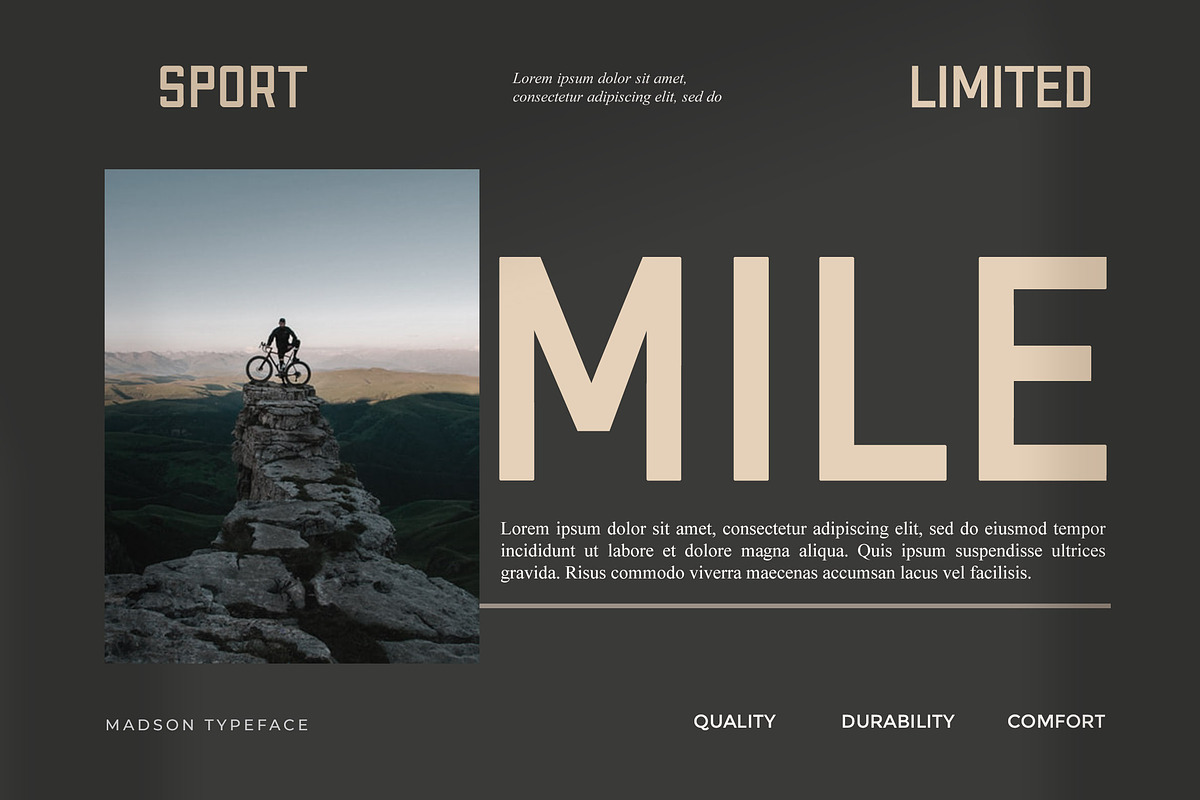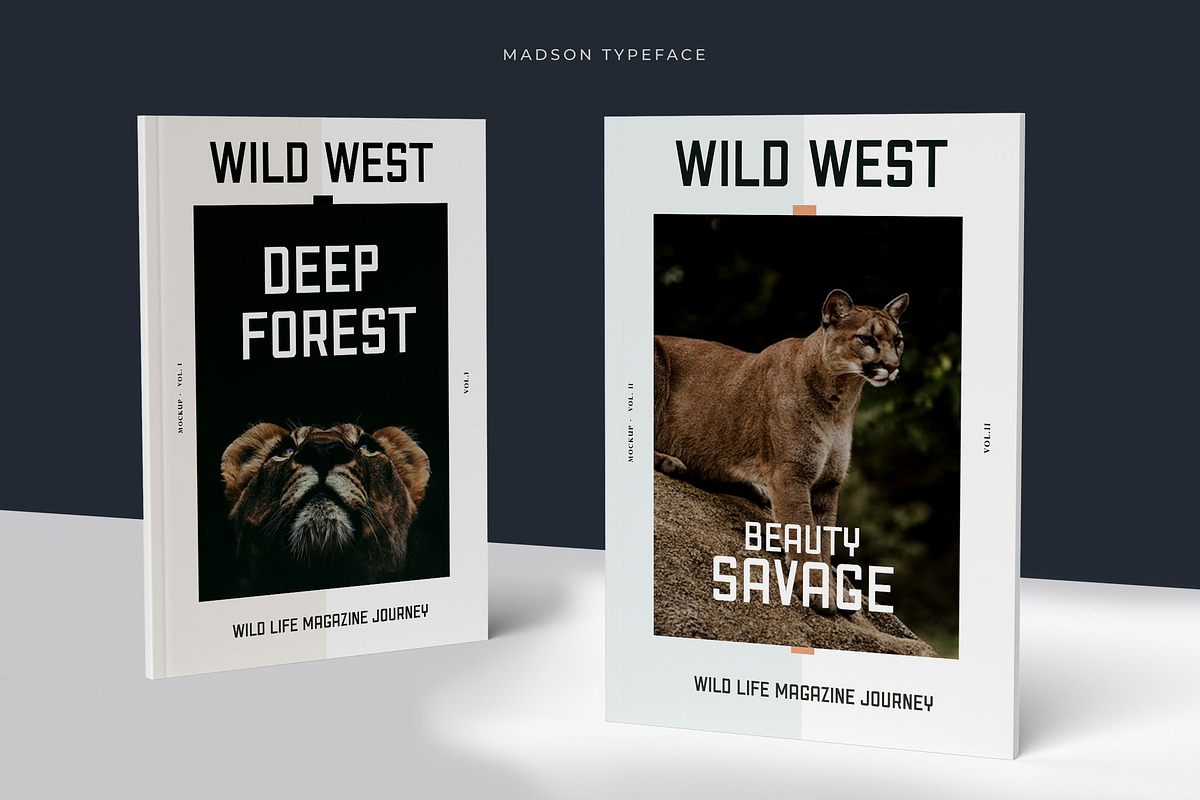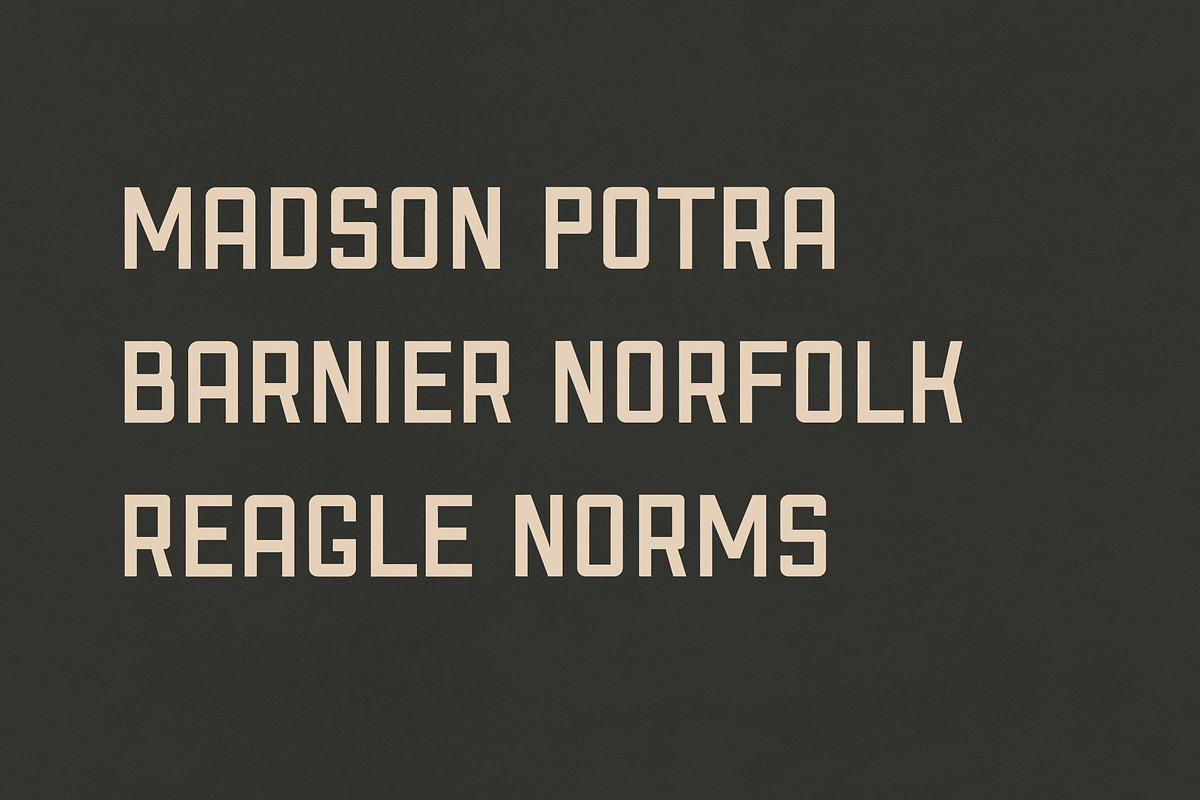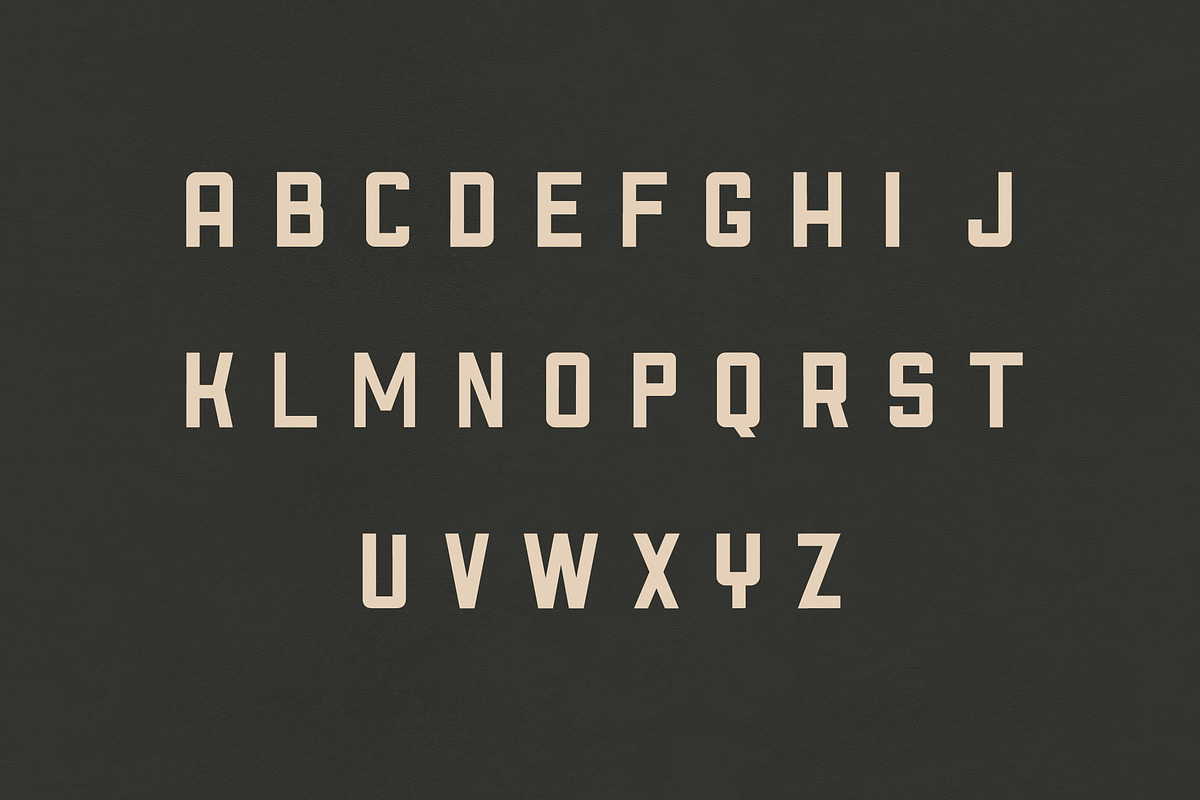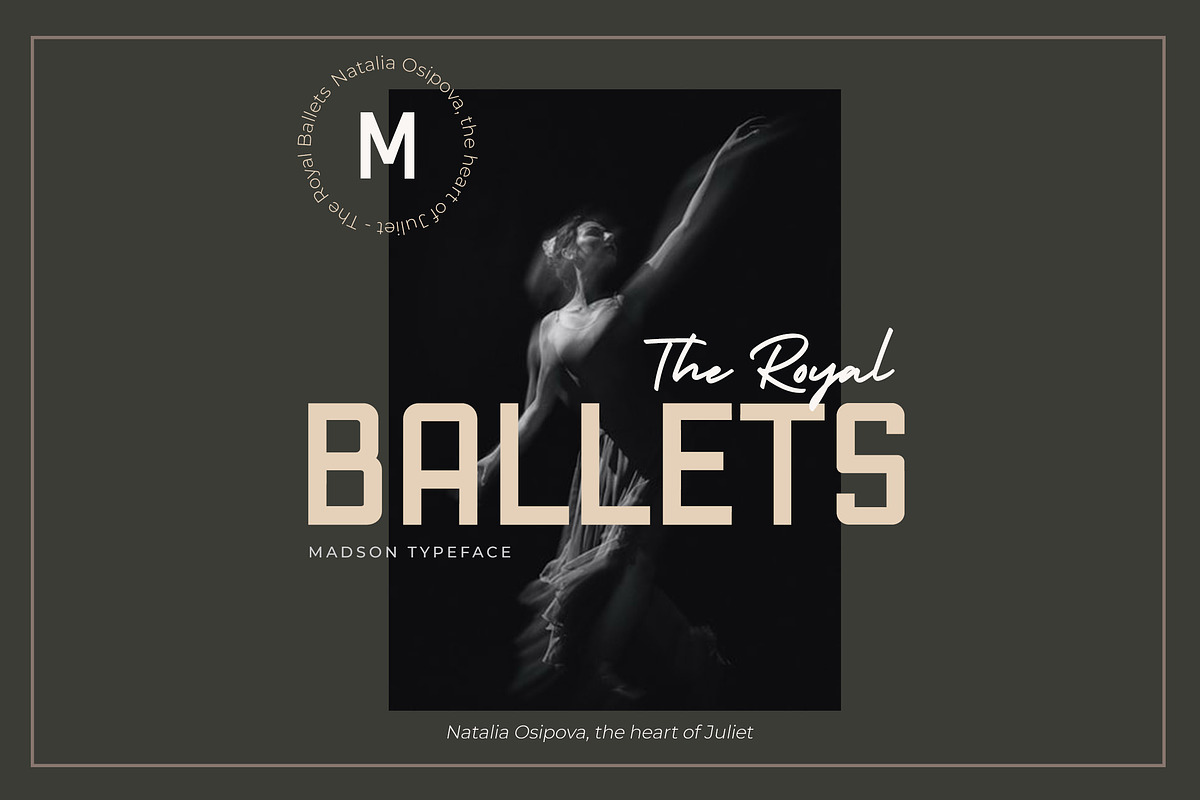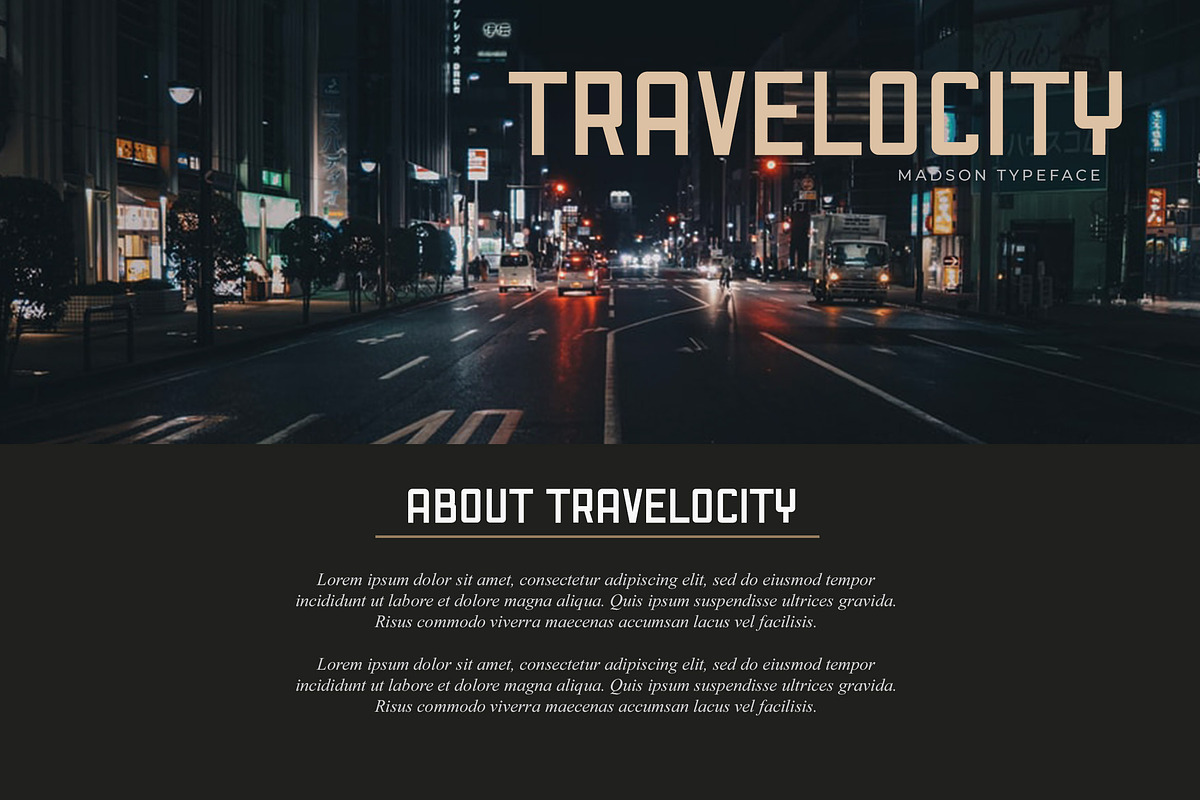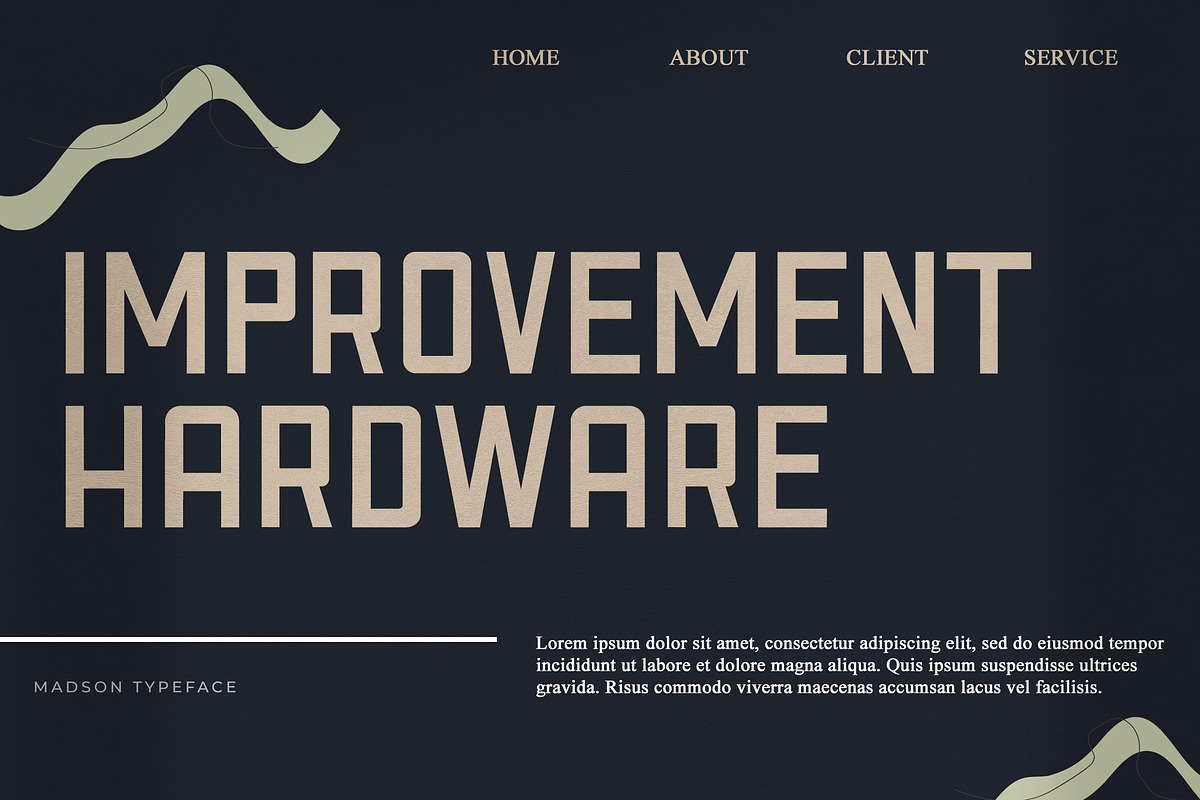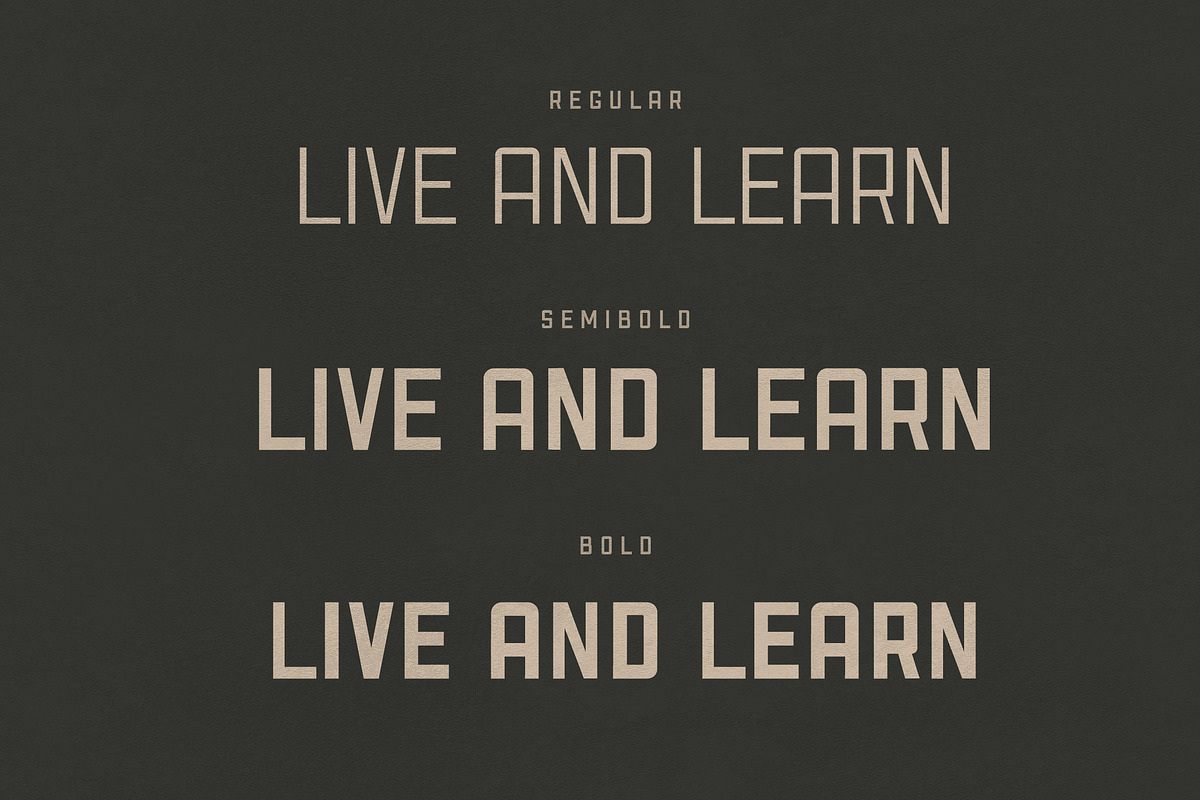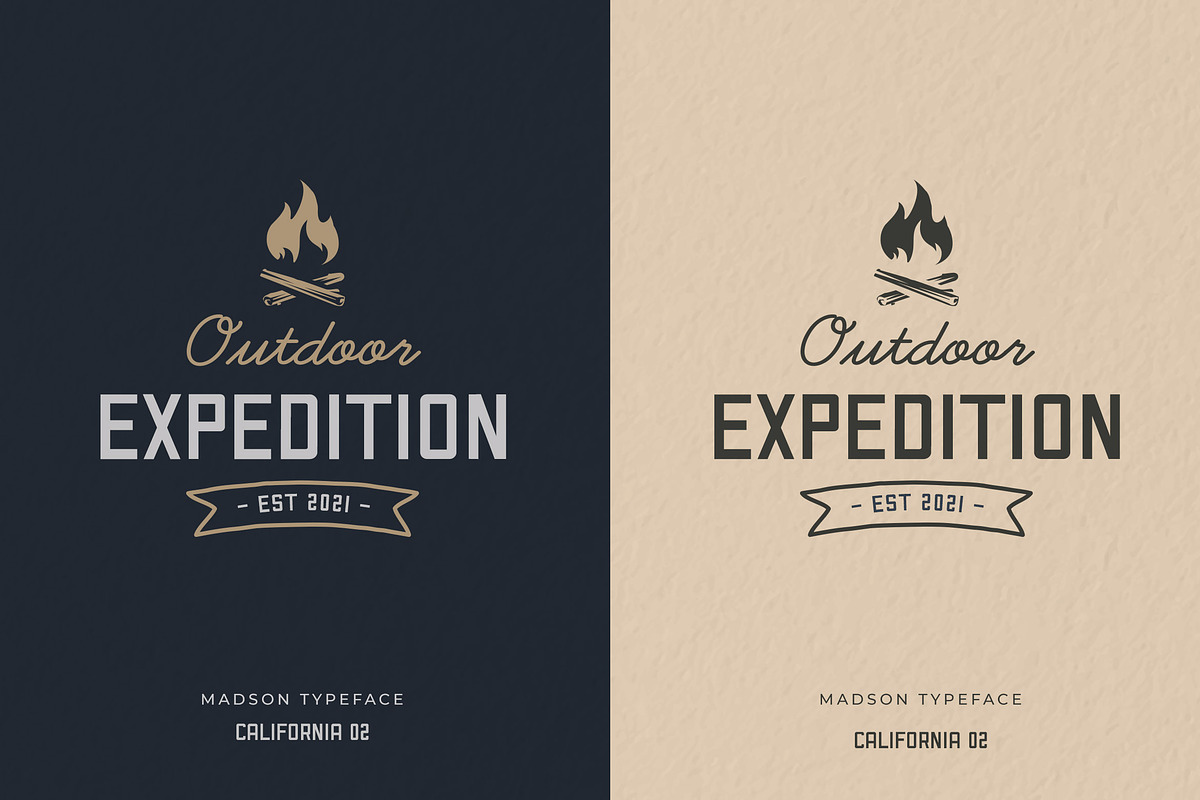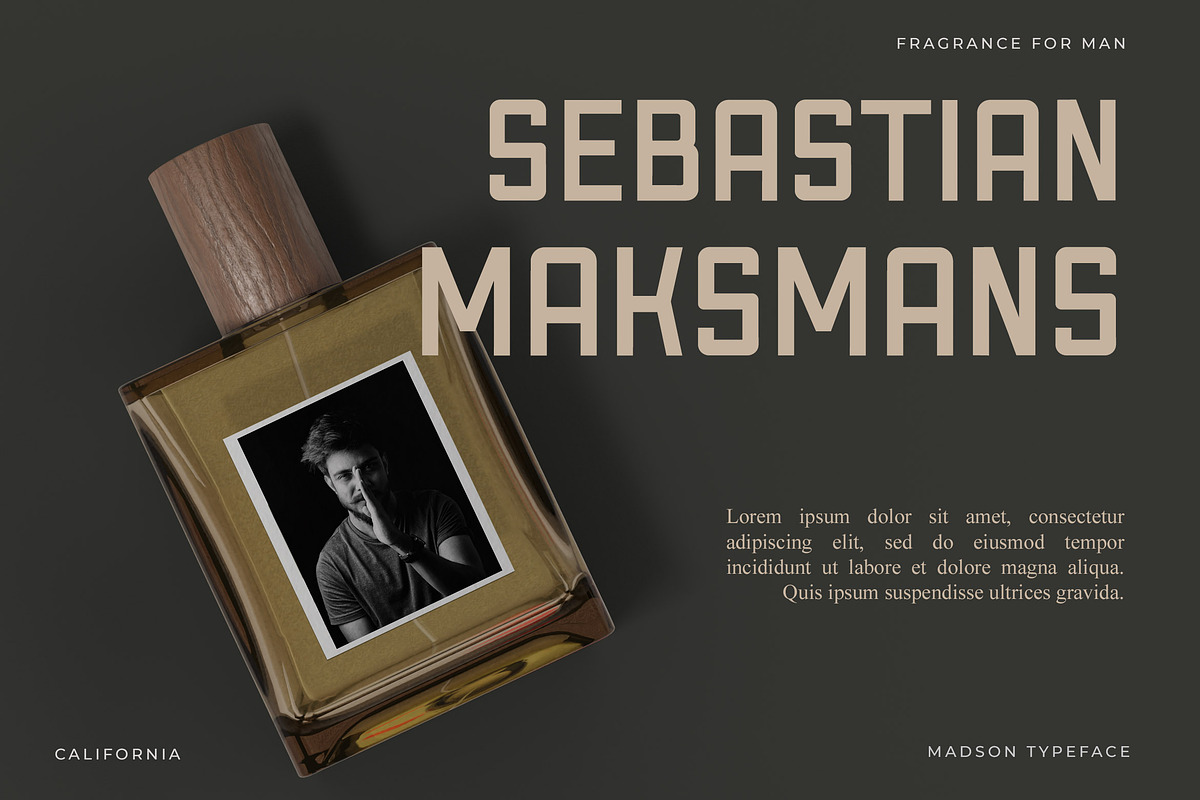
Madson - Masculine modern typeface
Introducing Madson Sans serif, a Bold Masculine modern typeface with multilingual support. It's a very versatile font that works great in large and small sizes. Perfect for branding projects, Logo design, Clothing Branding, product packaging, magazine headers, or simply as a stylish text overlay to any background image.
- 3 Weights font